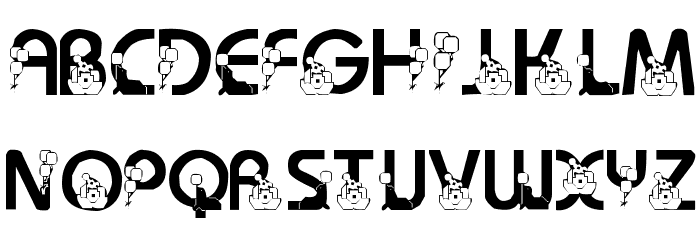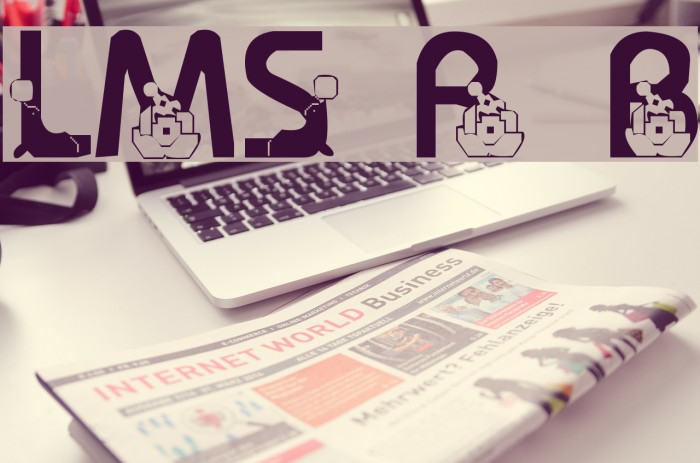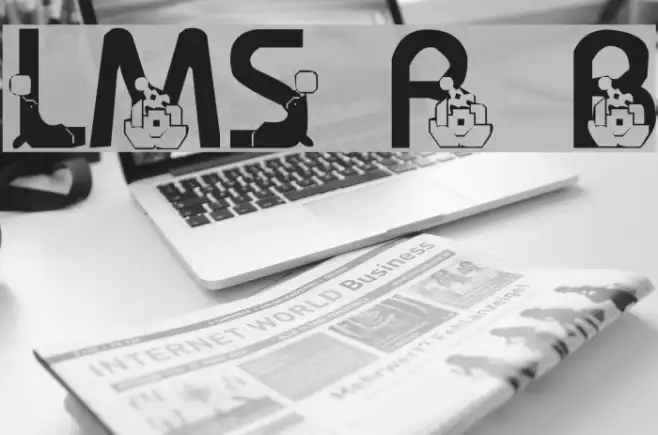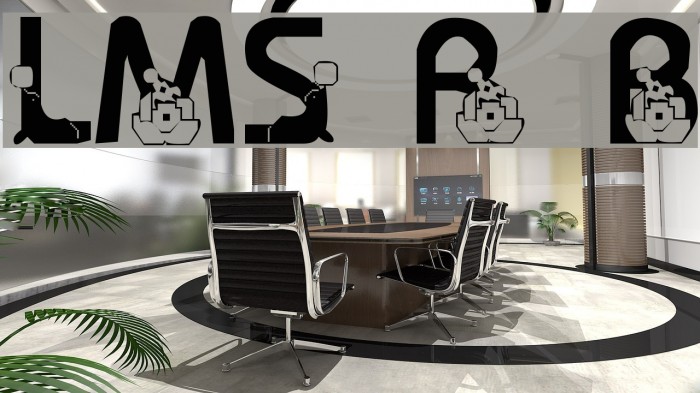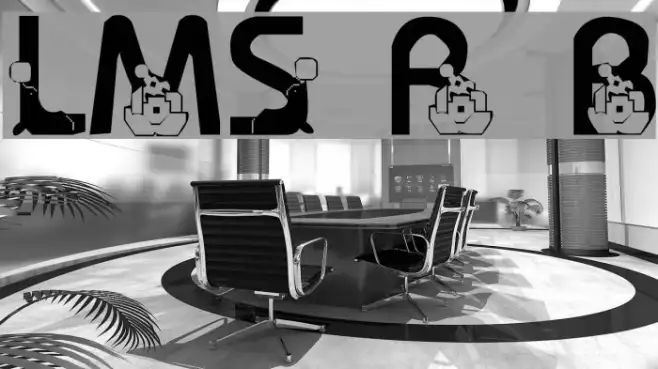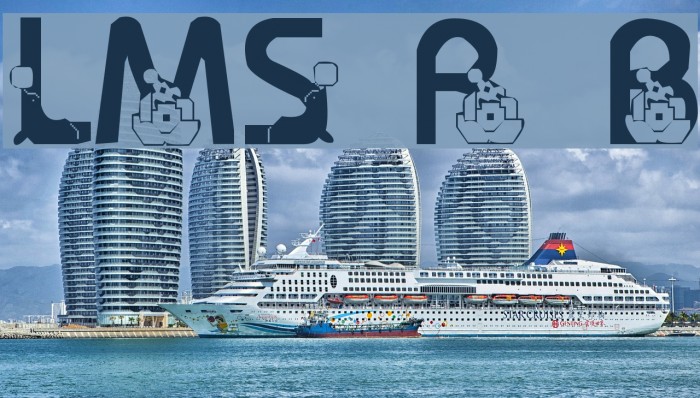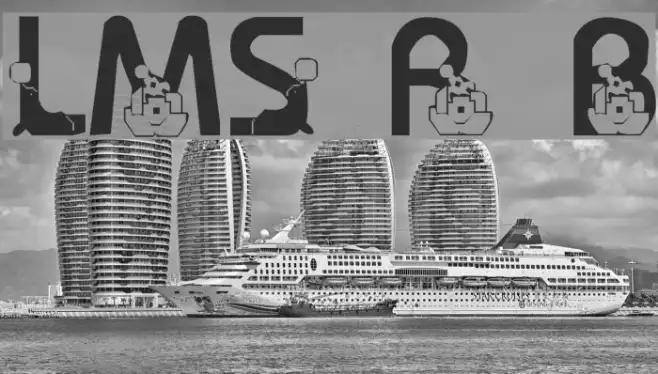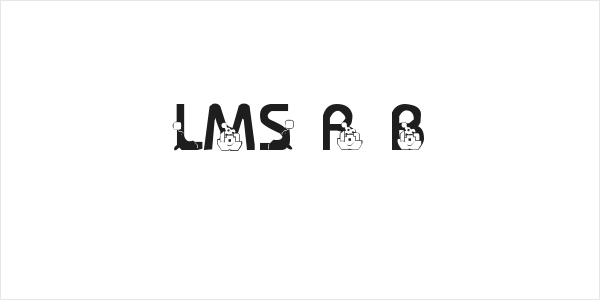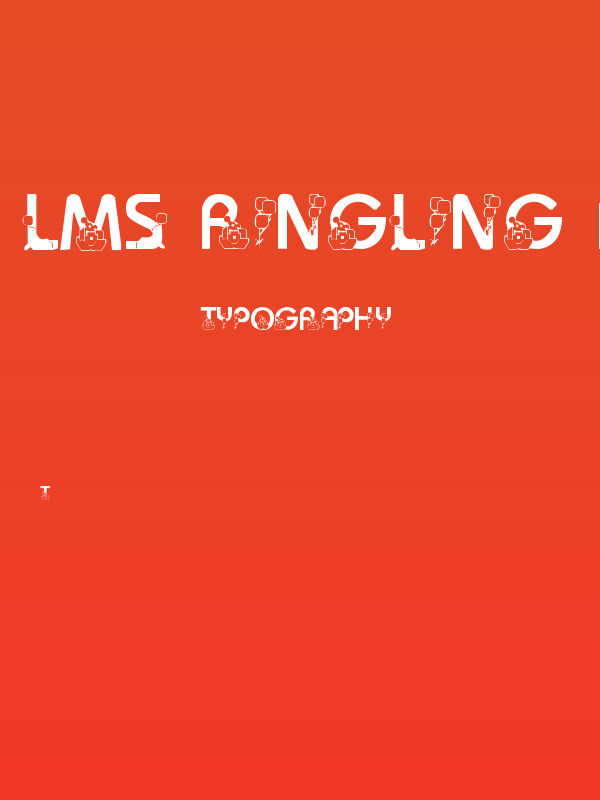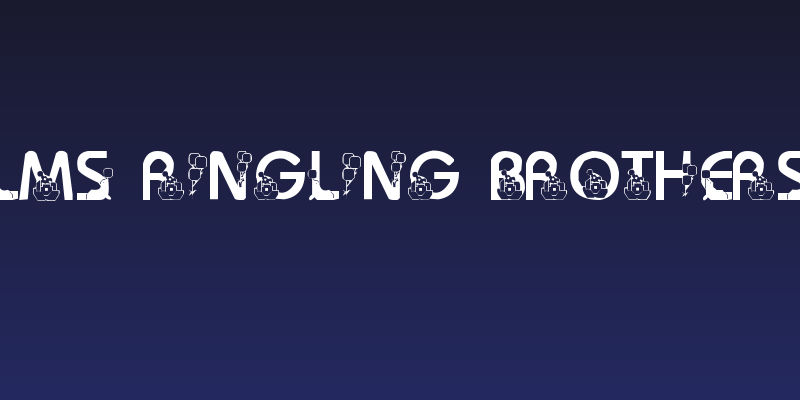
LMS Ringling Brothers Font
LMS Ringling Brothers Description
This font is a playful and decorative typeface that incorporates whimsical circus-themed elements into each character. The letters are bold and feature intricate designs, including circus tents, clowns, and other related motifs, giving it a lively and entertaining appearance. The font is primarily uppercase, with each letter having a unique design that reflects the fun and excitement of a circus atmosphere. The characters are well-defined, with a consistent style that maintains readability while adding a touch of creativity and flair. This font is ideal for projects that require a festive and eye-catching look, making it perfect for themed events, posters, and invitations.
| Proposed Projects | Ideal for circus-themed events, children's party invitations, playful posters, and festive branding. |